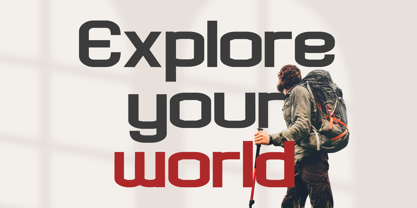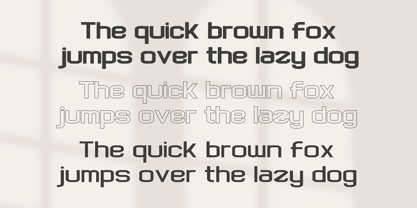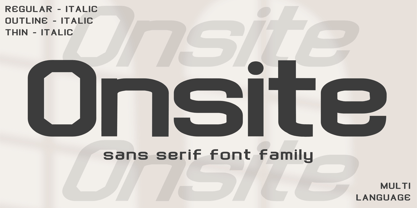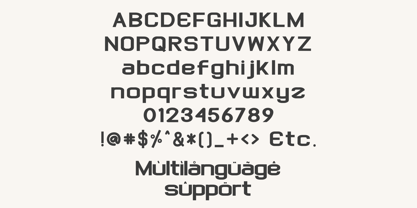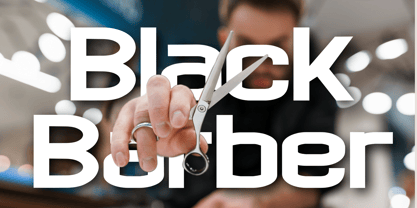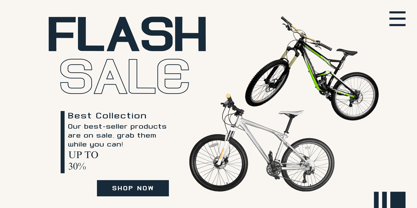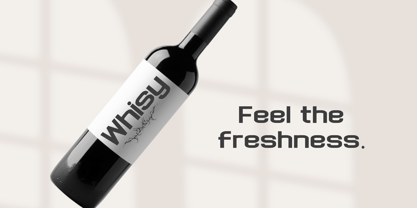
Onsite
A família de fontes Onsite foi desenhada por Ahmad Afandi e publicada pela Letterafandi Studio. Onsite contém 6 estilos e opções de pacote familiar.
Infuse your creative designs with the highly versatile Onsite, a sleek, sans-serif font family. Aptly named, Onsite stands as an exemplary choice when it comes to refining the aesthetic of your projects, instilling a sense of sophistication and professionalism. Rendered with mathematical precision and clear linearity, Onsite is primed to enhance your work, magnifying its visual appeal with a timeless, unambiguous nature inherent in sans serif fonts. Elevate your design projects to new heights of professionalism and elegance with the Onsite font family.